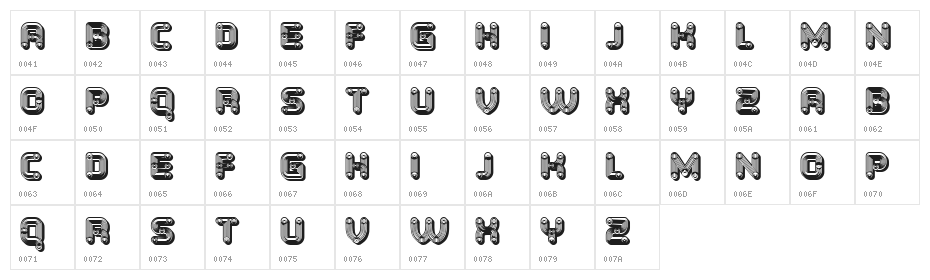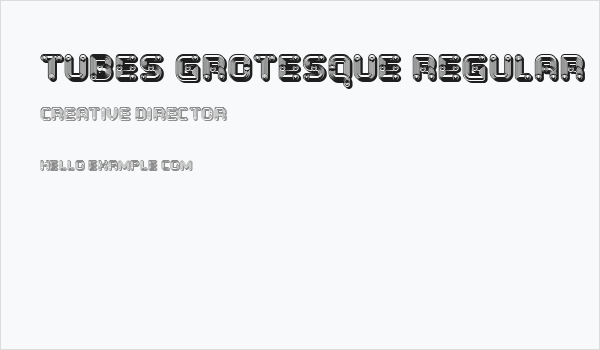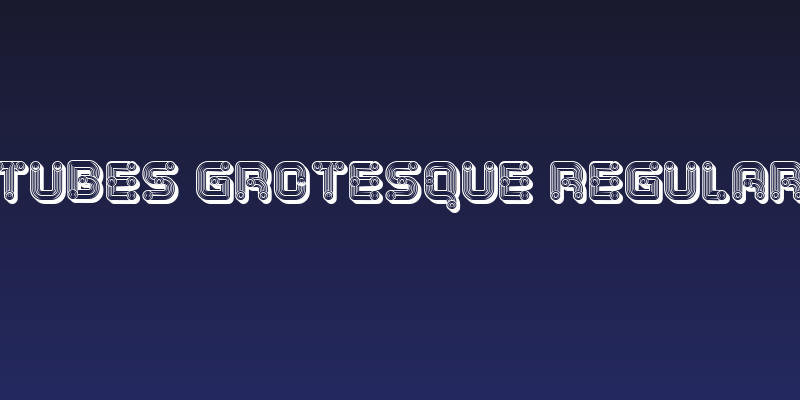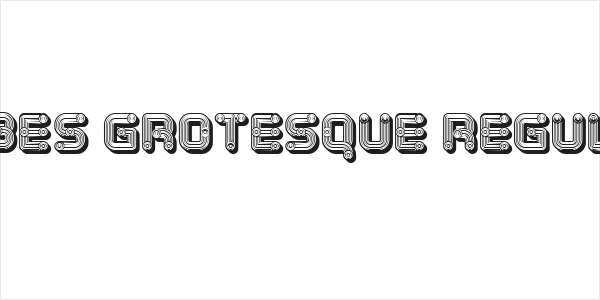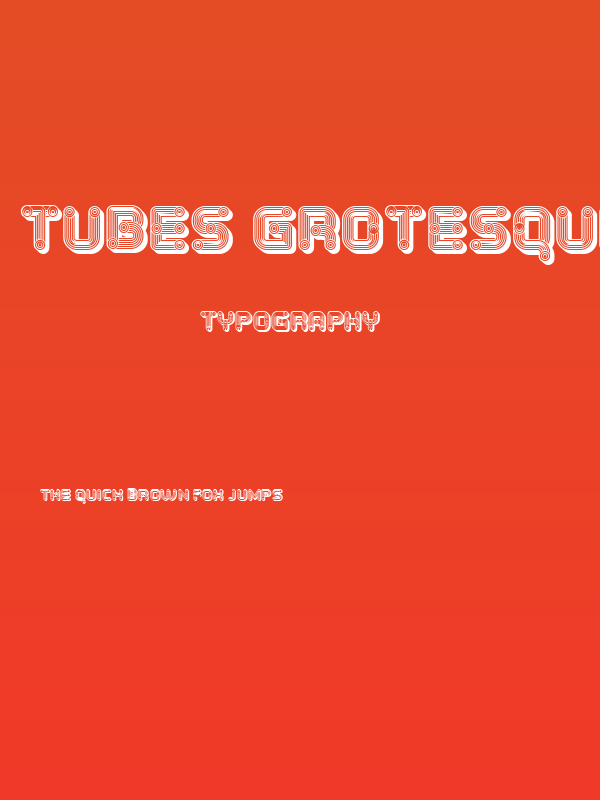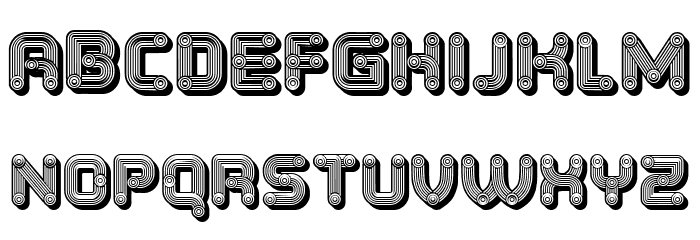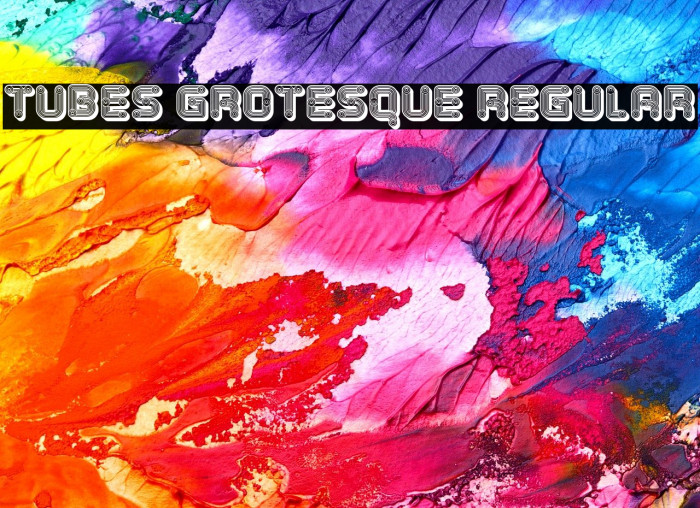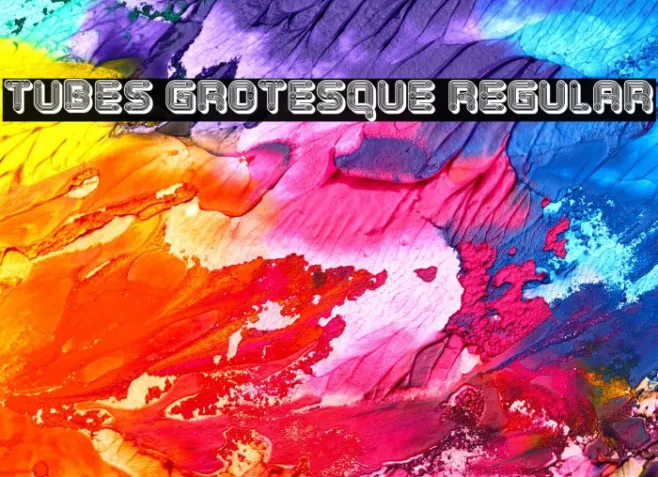
Tubes Grotesque Regular Font
Tubes Grotesque Regular Description
This font features a unique and intricate design, characterized by its tubular and circuit-like appearance. Each letter is composed of multiple parallel lines that create a sense of depth and complexity. The font has a bold and striking presence, making it ideal for attention-grabbing designs. Its geometric and futuristic style is reminiscent of digital circuits or industrial piping, giving it a modern and technological feel. The consistent line thickness throughout the characters ensures a cohesive look, while the rounded corners add a touch of softness to the otherwise mechanical aesthetic.
| Proposed Projects | Ideal for tech-themed posters, futuristic branding, video game titles, and sci-fi book covers. |